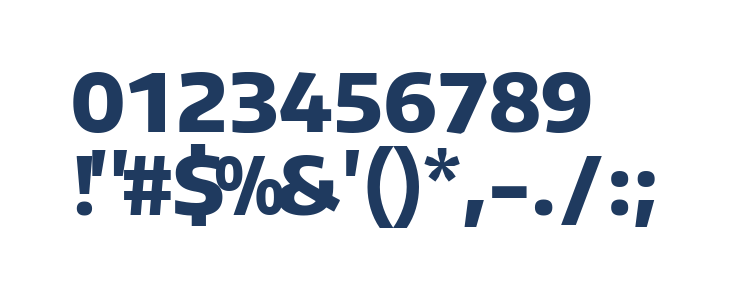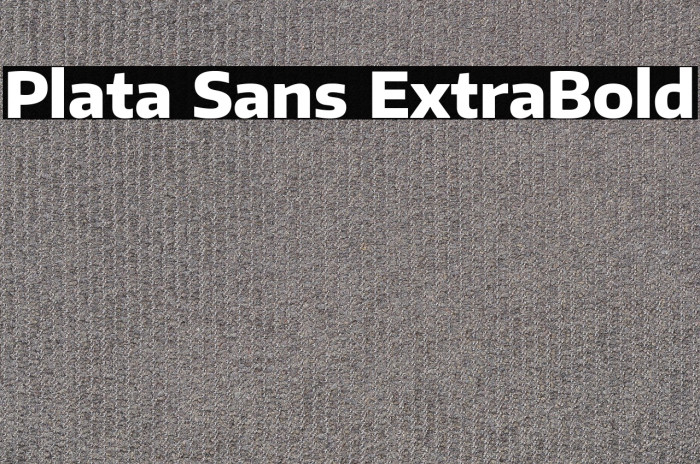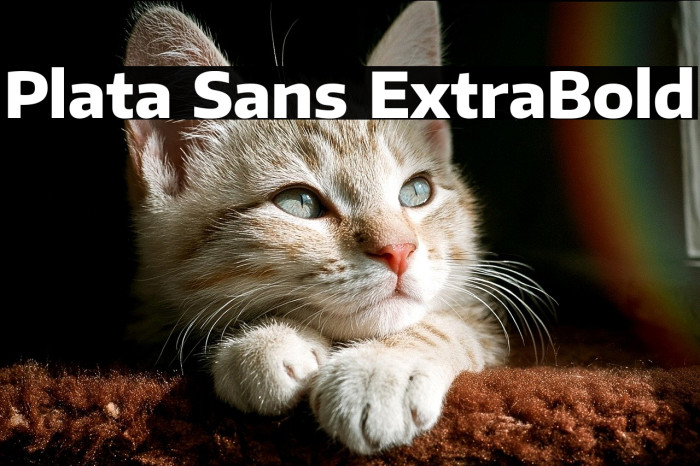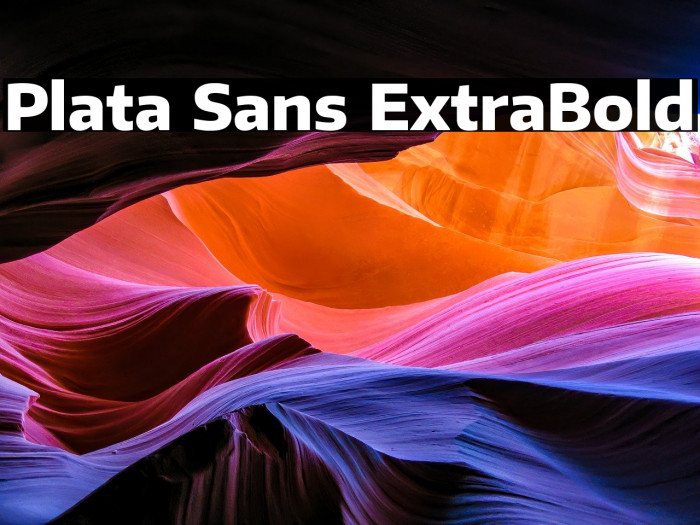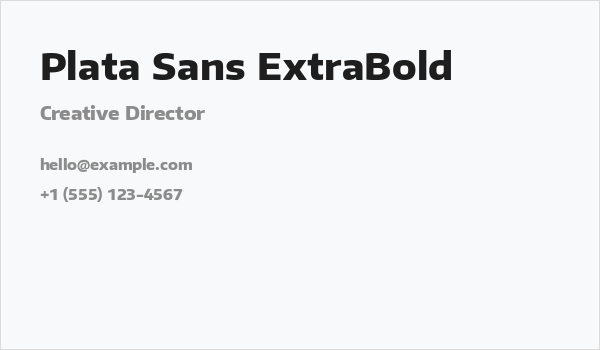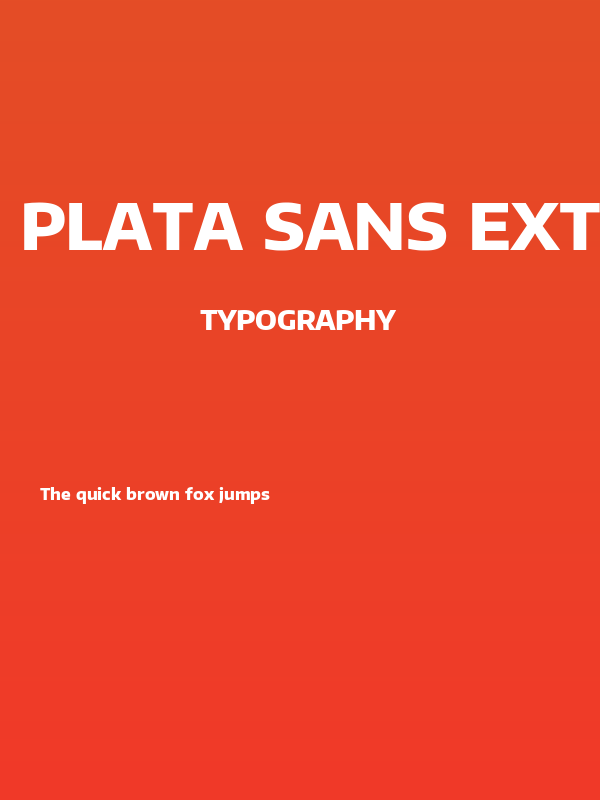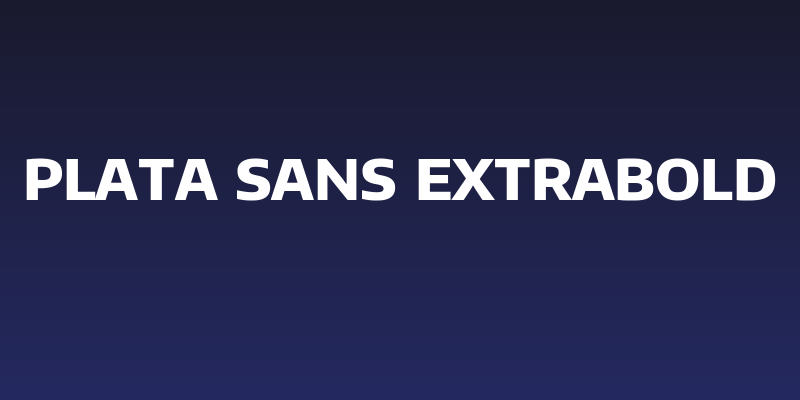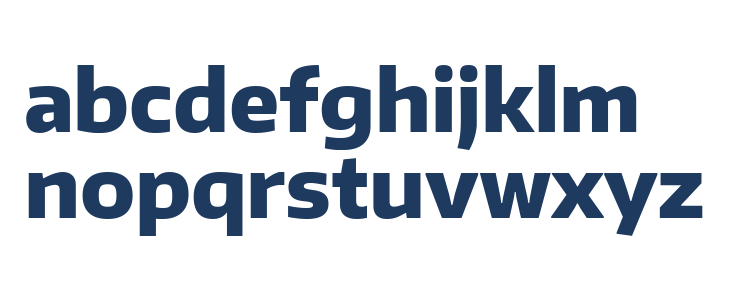
Plata Sans ExtraBold Font
Plata Sans ExtraBold Description
This font exhibits a strong, bold presence with its extra-thick strokes and clean lines. The sans-serif style ensures a modern and straightforward appearance, making it highly legible and impactful. The characters are uniformly designed with a consistent weight, providing a cohesive look across both uppercase and lowercase letters. The numerals and special characters maintain the same boldness, ensuring they stand out equally. The overall design is sleek and contemporary, suitable for various digital and print applications.
| Proposed Projects | Ideal for branding, headlines, posters, and digital media where a strong, modern impact is desired. |